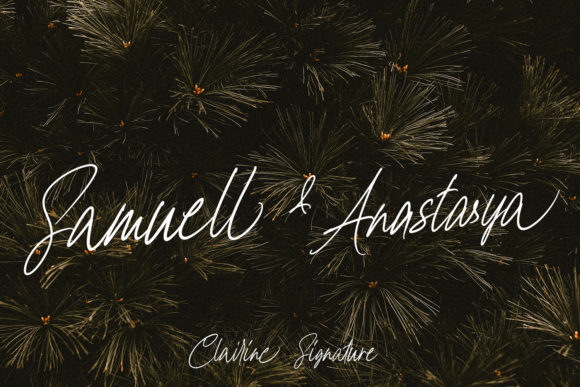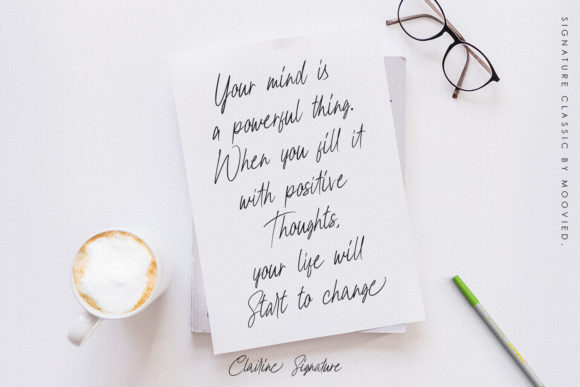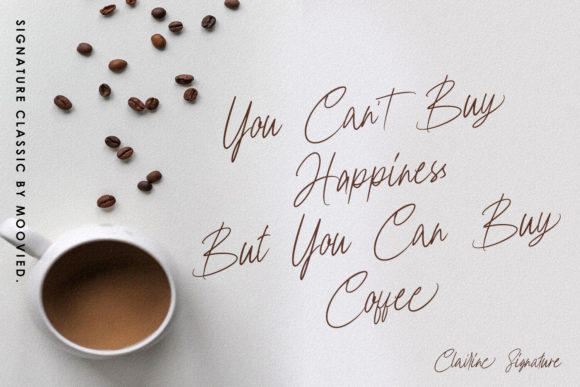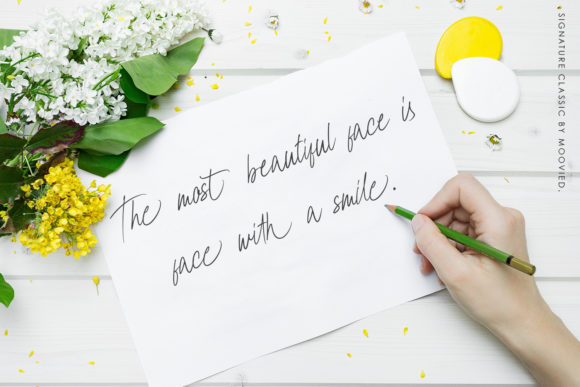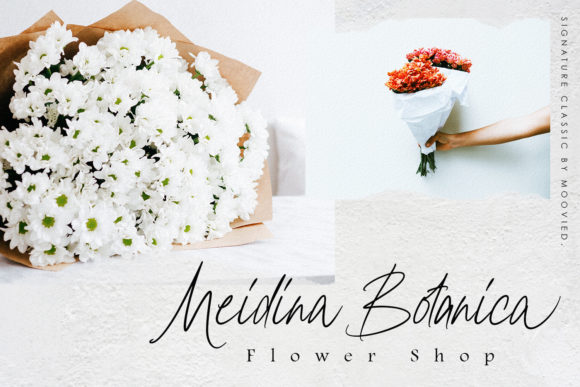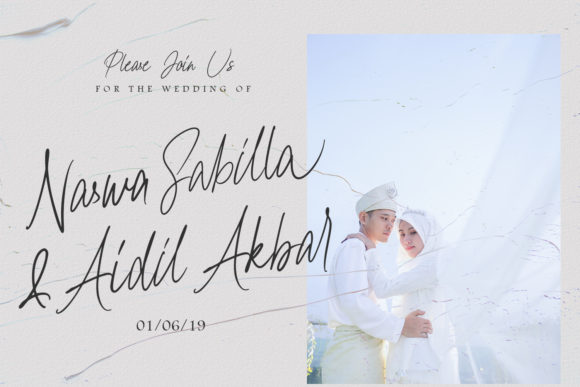
Introducing Chairine Font: Elevate Your Designs with a Unique Handwritten Style
Are you tired of using the same old fonts in your creative projects? Look no further than Chairine Font, a beautiful and bold handwritten font that adds an incredibly authentic feel to any design. With its unique spin, Chairine is sure to take your projects to the next level and leave a lasting impression on your audience.
What Makes Chairine Font So Special?
Chairine Font is a one-of-a-kind handwritten font that boasts an authentic feel, making it perfect for designers and crafters looking to add a personal touch to their work. Its bold and beautiful design ensures that your text stands out, while its unique style adds a touch of sophistication and elegance.
Key Features of Chairine Font
• Authentic Handwritten Style: Chairine Font features an incredibly authentic handwritten style that adds a personal touch to any design.
• Bold and Beautiful: The font’s bold design ensures that your text stands out, making it perfect for headings, titles, and more.
• Unique Spin: Chairine Font’s unique style sets it apart from other fonts, making it perfect for designers and crafters looking to add a touch of originality to their work.
• Versatile: Chairine Font is perfect for a wide range of creative projects, from branding and advertising to packaging and more.
Uses for Chairine Font
Chairine Font is a versatile font that can be used in a variety of creative projects, including:
• Branding and Advertising: Use Chairine Font to create eye-catching logos, advertisements, and marketing materials that stand out.
• Packaging Design: Add a personal touch to your packaging designs with Chairine Font, making your products stand out on store shelves.
• Stationery and Invitations: Use Chairine Font to create beautiful and unique stationery, invitations, and greeting cards.
• Digital Design: Chairine Font is perfect for digital designs, including social media graphics, website headers, and more.
Tips for Using Chairine Font
To get the most out of Chairine Font, here are a few tips to keep in mind:
• Use it as a Headline Font: Chairine Font is perfect for headlines and titles, making it a great choice for adding a bold and eye-catching element to your designs.
• Pair it with Other Fonts: Experiment with pairing Chairine Font with other fonts to create a unique and visually appealing design.
• Adjust the Size and Color: Don’t be afraid to experiment with different sizes and colors to make Chairine Font truly stand out in your designs.
Font Name Chairine Font
Author TempCraft
In conclusion, Chairine Font is a beautiful and bold handwritten font that adds an incredibly authentic feel to any creative project. With its unique spin, versatility, and range of uses, Chairine Font is perfect for designers and crafters looking to elevate their designs and leave a lasting impression on their audience. So why wait? Try Chairine Font today and take your designs to the next level!